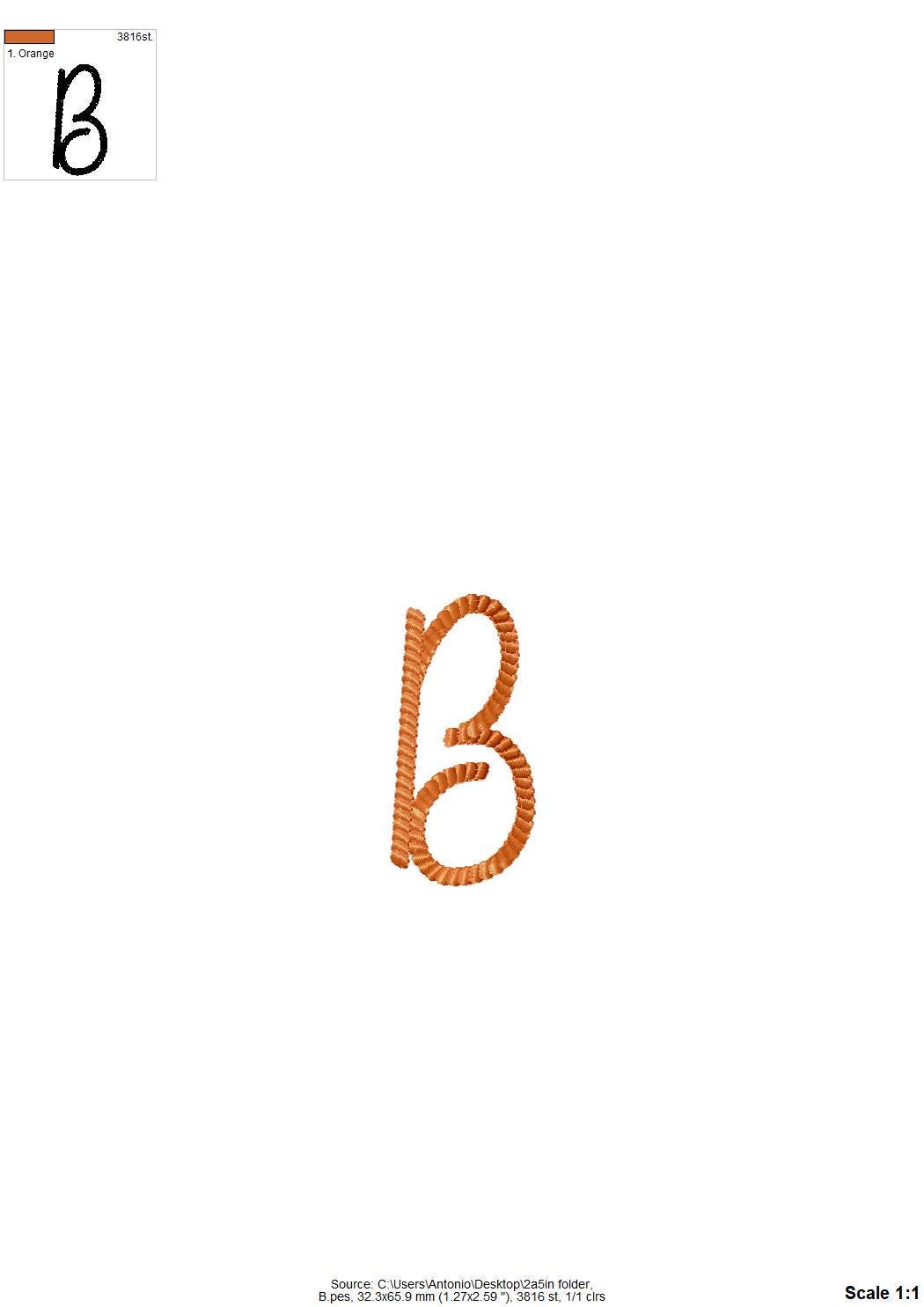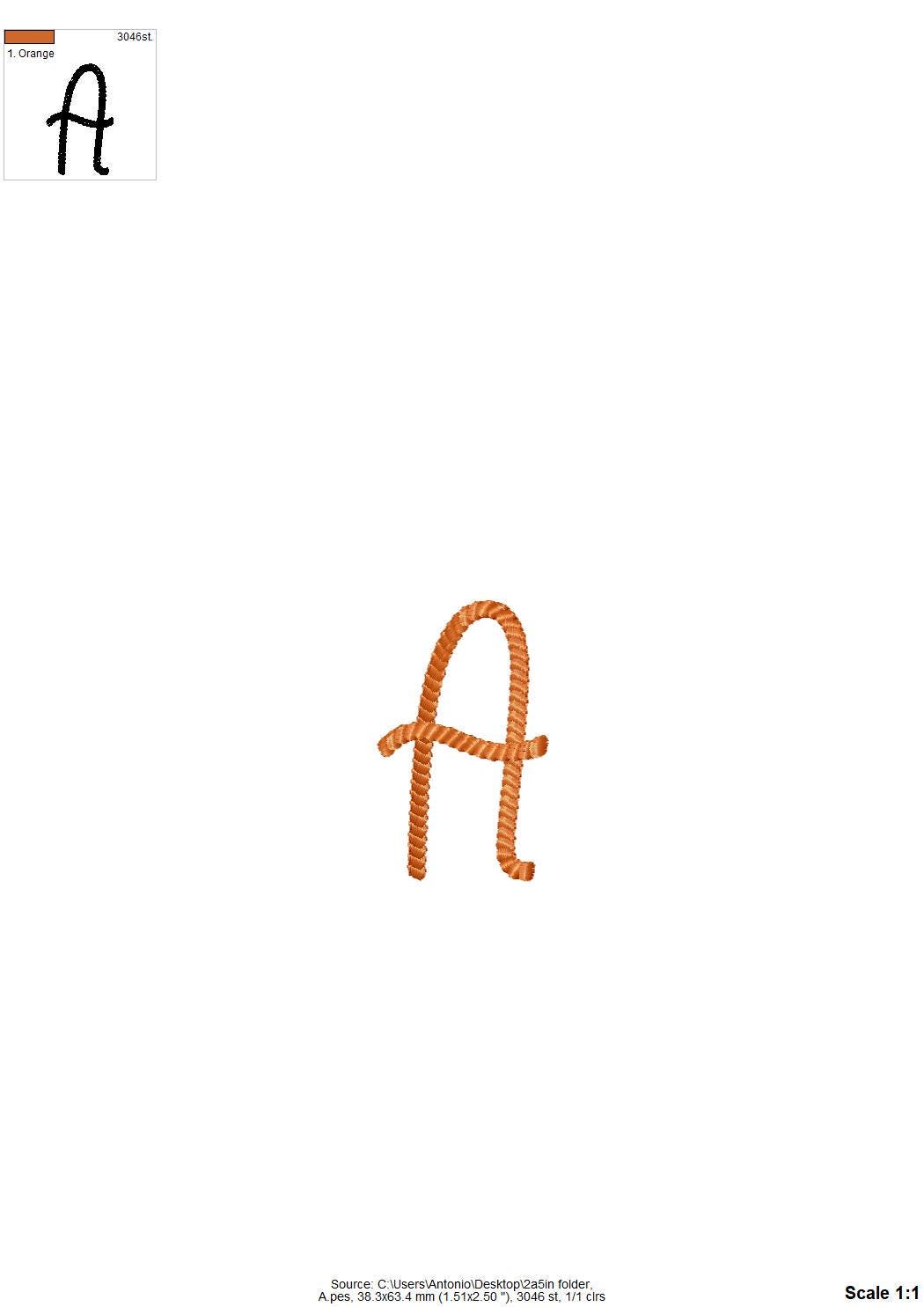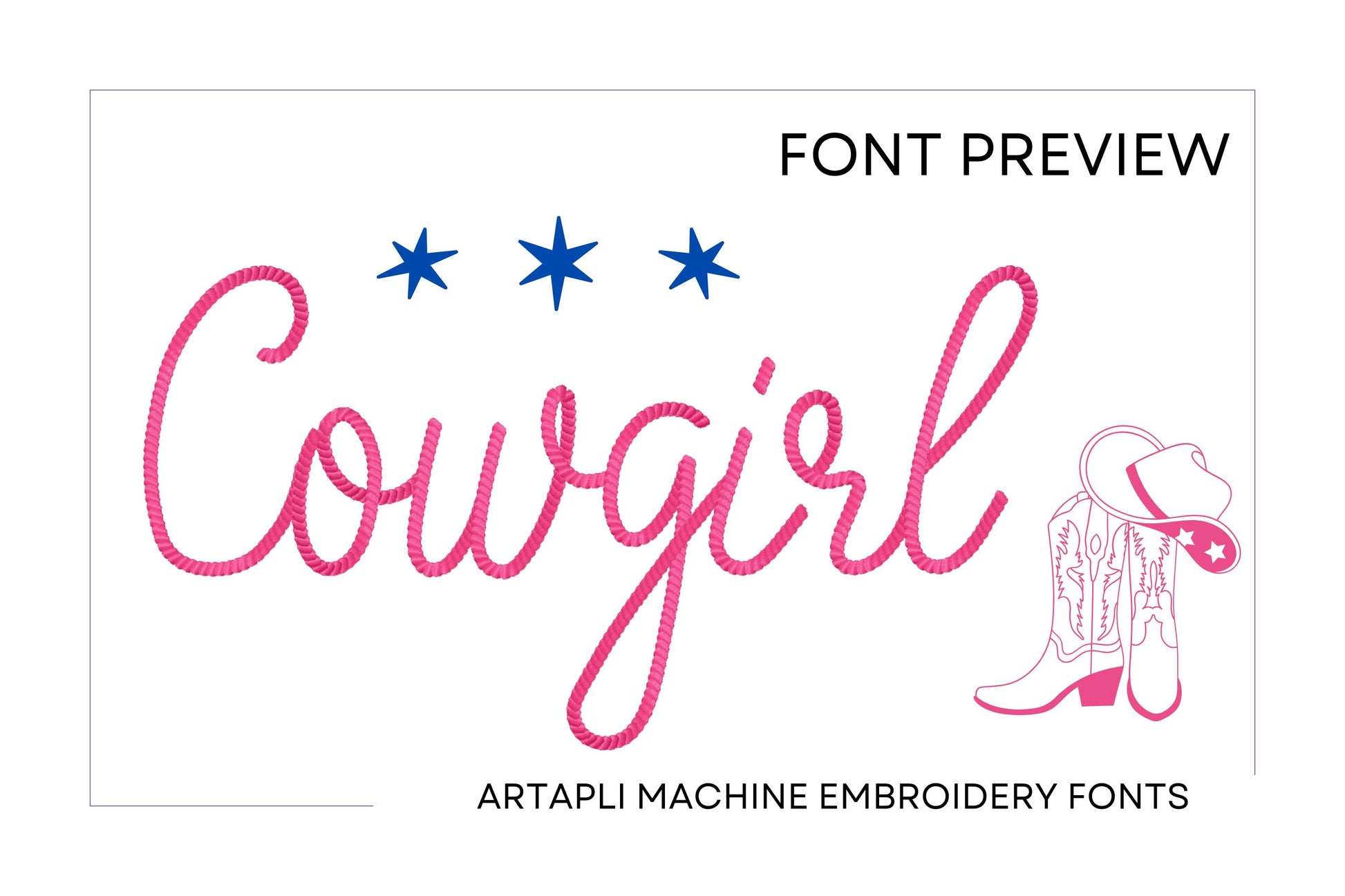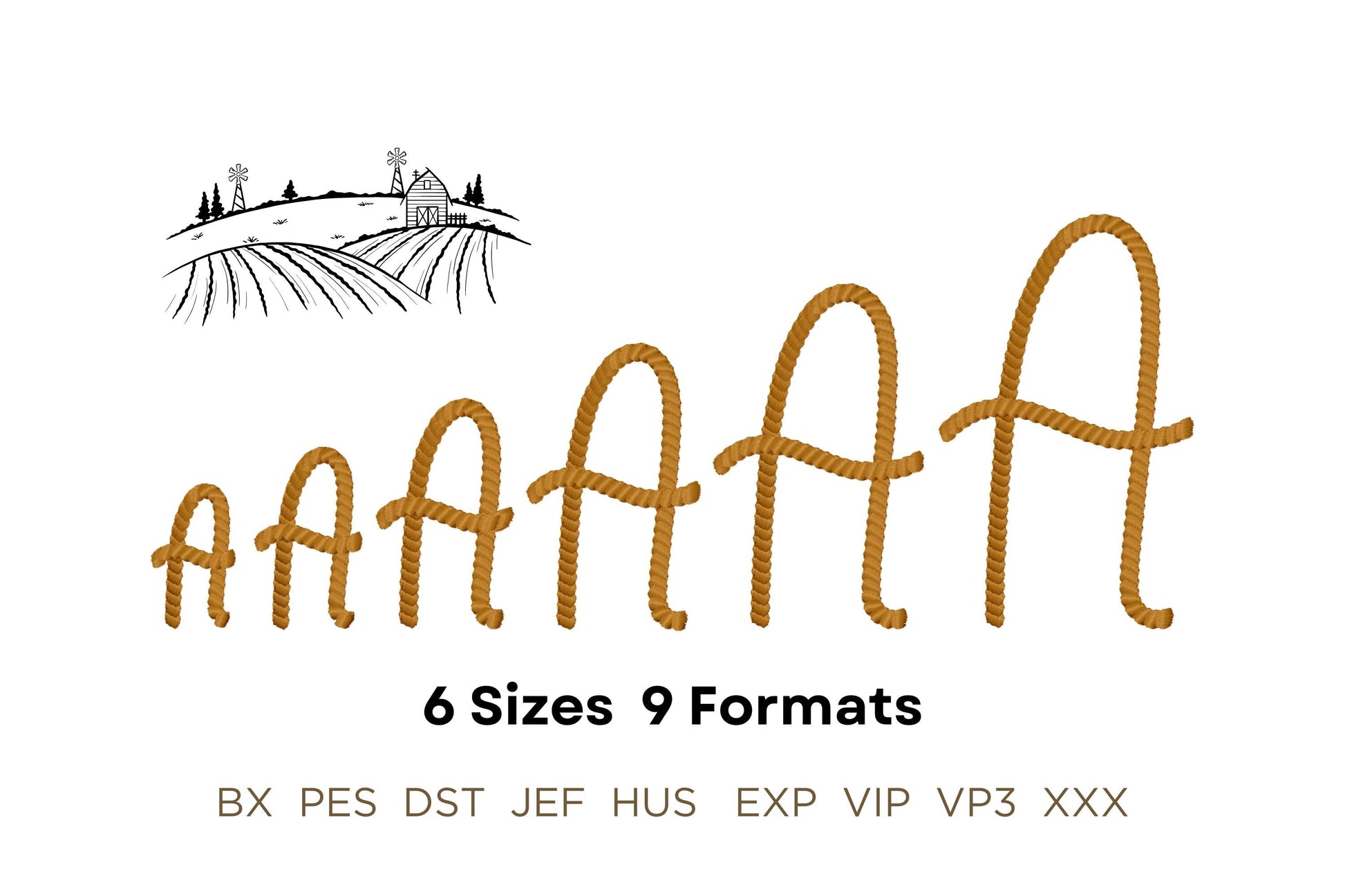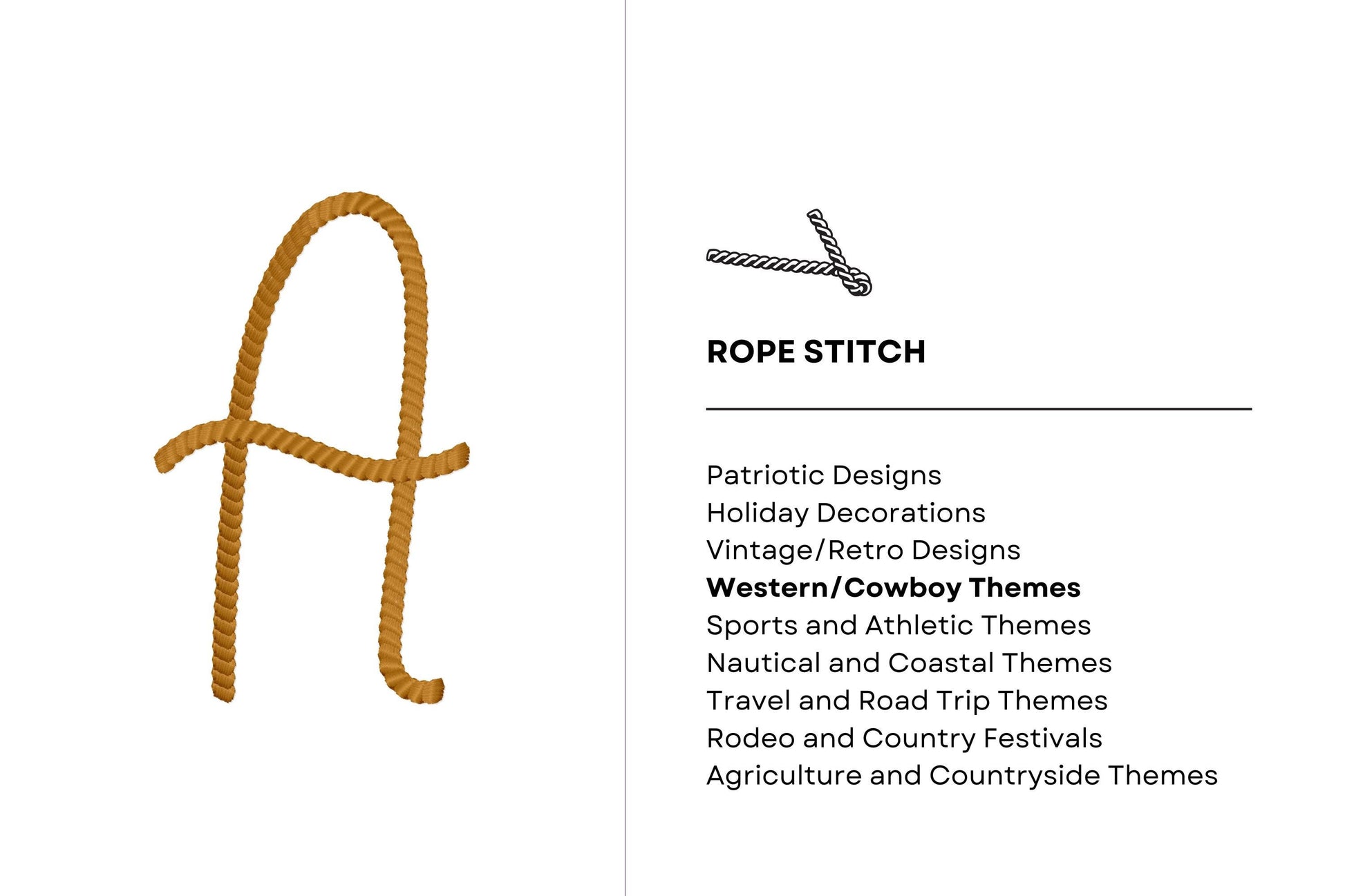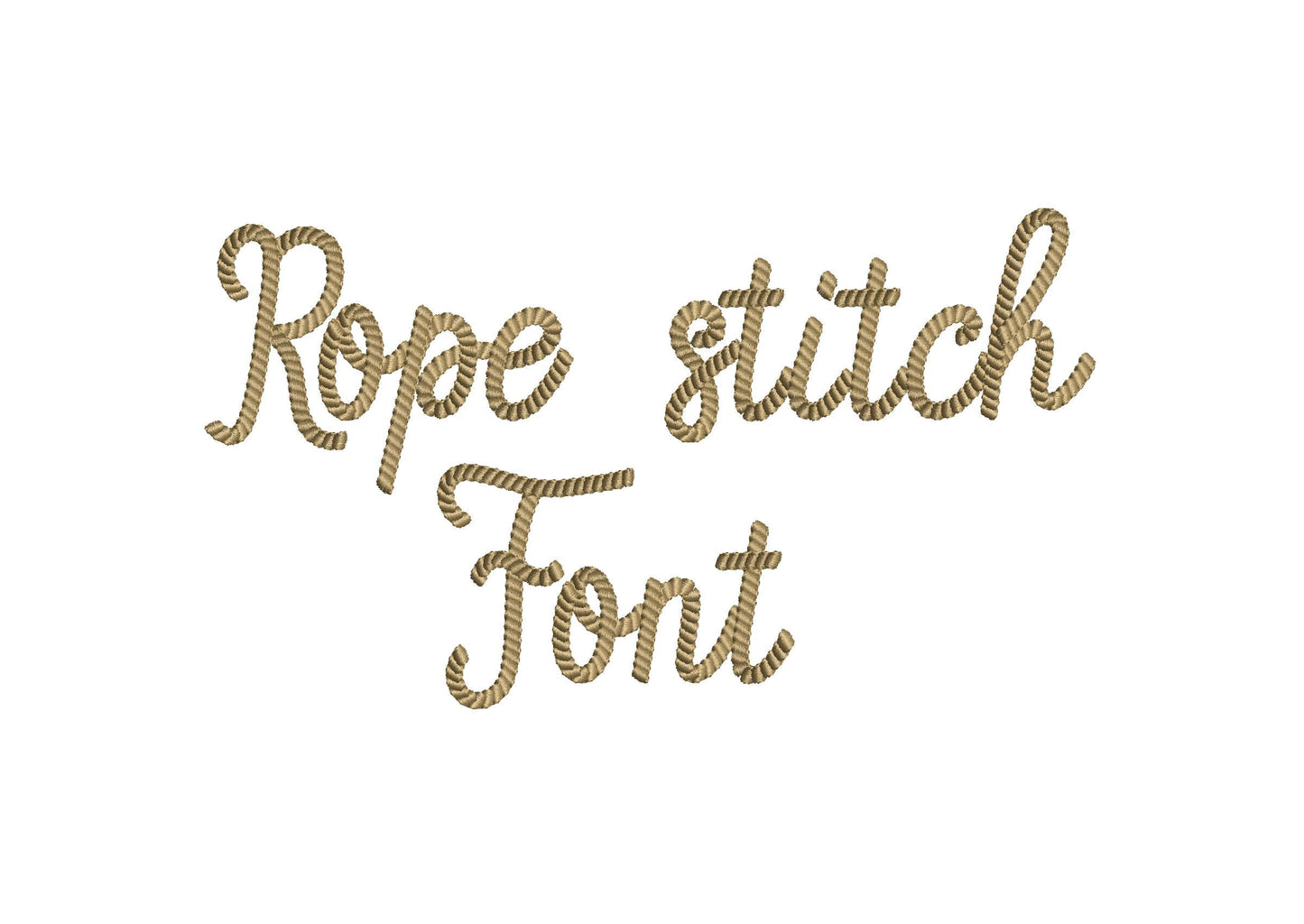
Or click to open the linkA handwritten rope stitch font, lasso style, for cowboy and cowgirl names on shirts, caps and bags.
Uppercase and lowercase letters, numbers, &, - and / in six sizes: 1.3, 1.6, 2, 2.5, 3 and 3.6 inches.